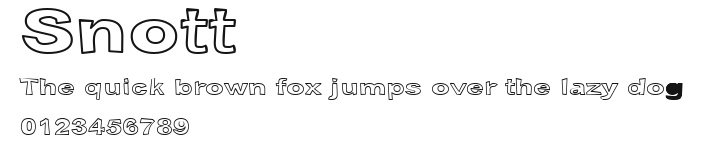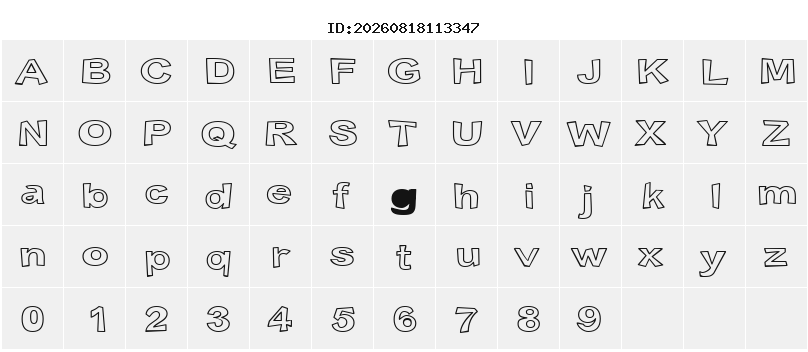
Snott Preview
• Font Name: Snott
• Font Style: Outline
• Font ID: Snott
• Full Font Name: Snott Outline
About Snott.ttf
Snott.ttf is a modern, elegant sans-serif font designed for ultimate readability and visual harmony. Perfect for branding, headlines, web design, and print materials.